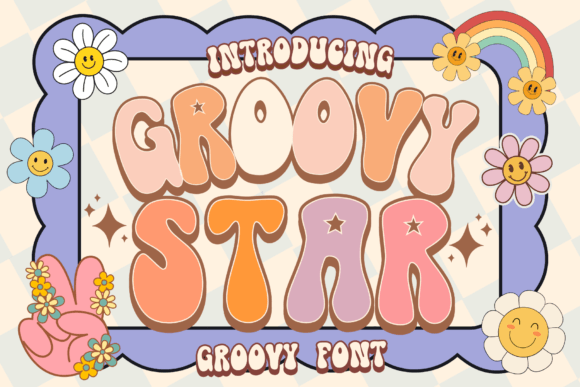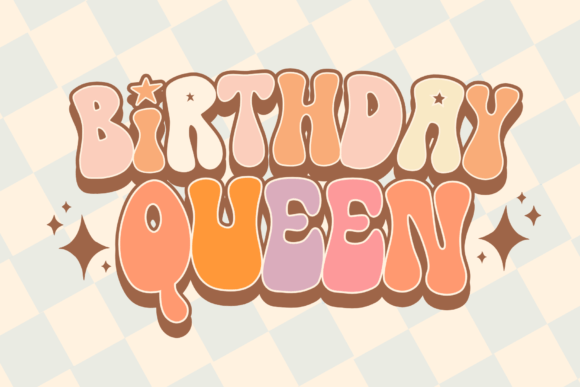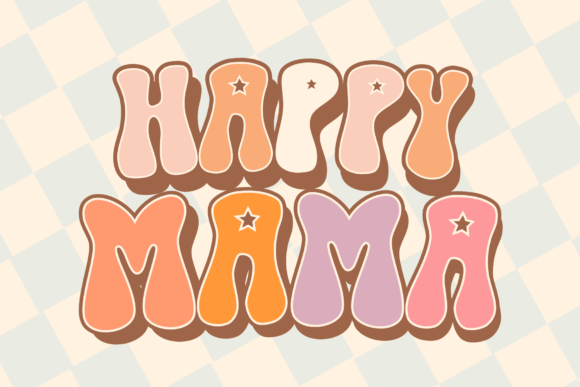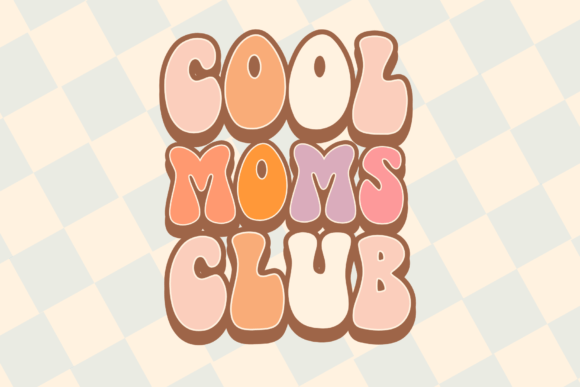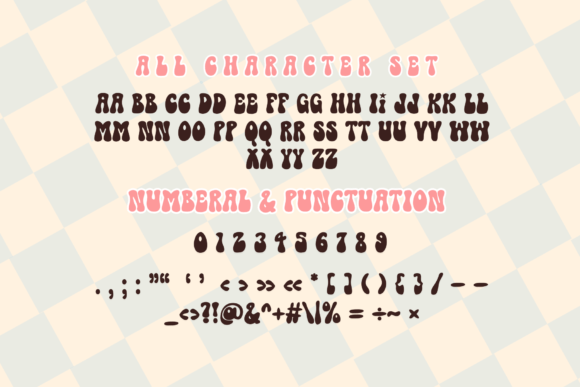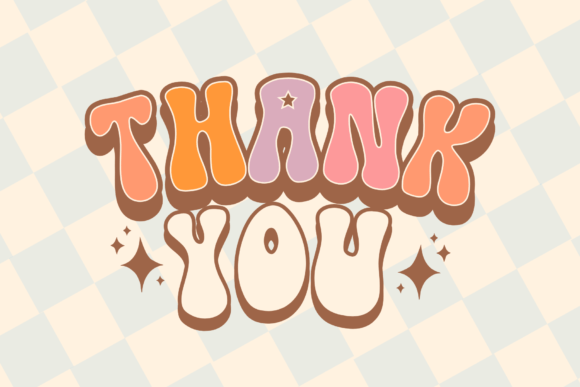
Get Ready to Groove with the Groovy Star Font
Have you ever been rummaging through your grandfather’s attic, stumbling upon a stack of old vinyl records, and suddenly, the music of the 60s and 70s transports you to a world of free-spirited creativity? For many designers, that’s exactly the moment when inspiration strikes, and the Groovy Star Font becomes the perfect companion to bring that retro vibe to life.
The Groovy Star Font is a stylish retro groovy font that embodies playfulness and authenticity. Its versatility makes it an ideal choice for all your favorite projects, from blog posts and logos to branding, ads, invitations, and greeting cards. What makes it truly valuable for designers is its ability to add a touch of nostalgia and whimsy to any design, making it stand out in a crowded market.
Groovy Star Font Key Features
- Unique Characteristics: Groovy Star Font boasts a distinctive, hand-drawn style with intricate details and ornaments, making it perfect for adding a touch of whimsy to designs.
Groovy Star Font Review
Overall, I think the Groovy Star Font is a fun and playful choice for projects that need a touch of retro flair. ✨ The font’s unique design and bold lines make it stand out in any design context.
- The font’s versatility allows it to be used in various design projects, from posters to digital interfaces.
- Its bold and eye-catching design is perfect for grabbing attention and making a statement.
- ⚠️ The font may be too loud or overwhelming for some design projects, making it difficult to use in more subtle or minimalist designs.
- ⚠️ The font’s unique design may not be suitable for projects that require a more formal or professional tone.
- ⚠️ Some users may find the font’s bold lines and shapes to be too distracting or difficult to read in certain contexts.
While the Groovy Star Font is not for every project, I think it’s a great choice for designers who want to add a touch of personality and flair to their work. With its unique design and versatility, it’s a great option for projects that need a little extra something special.
For a unique look, try combining Groovy Star Font with other decorative fonts or bolding specific words.
For a more creative look, try using the font in conjunction with vector shapes or illustrations.
For a professional look, try pairing Groovy Star Font with a clean and simple background.
Use Groovy Star Font for:
1. Adding a playful touch to invitations, posters, or social media graphics.
2. Creating a unique logo or brand identity.
3. Adding a decorative element to headings or titles.
Remember to experiment with different font combinations and styles to achieve the desired look.